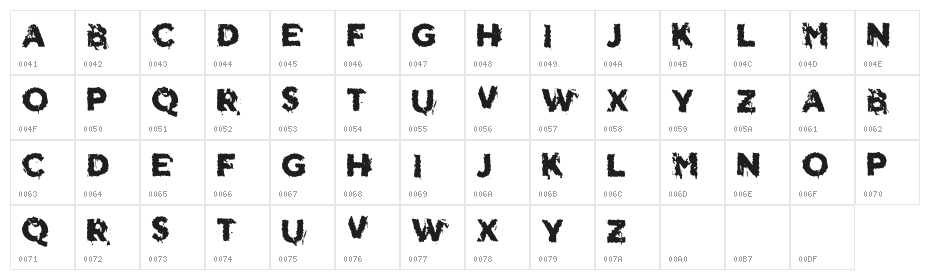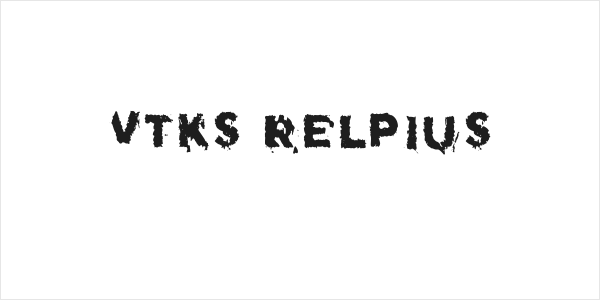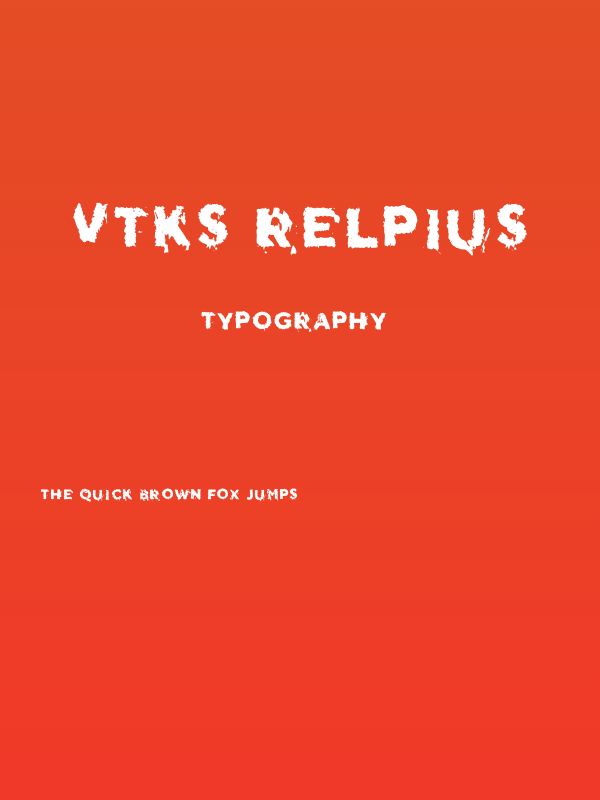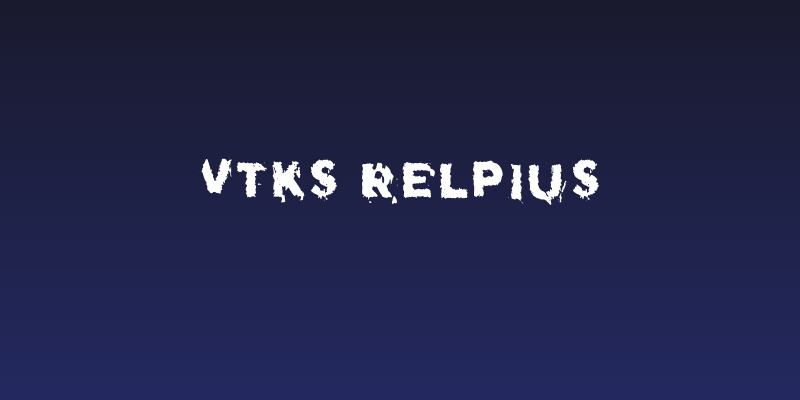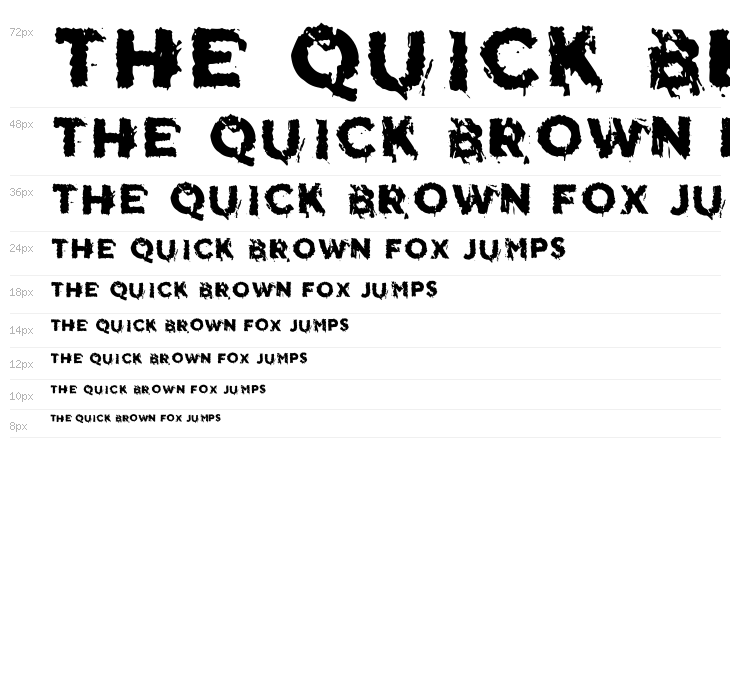
Vtks Relpius Font
Vtks Relpius Description
This font features a distressed and grungy aesthetic, with each character appearing as if it has been weathered or eroded over time. The edges are rough and irregular, giving it a raw and edgy feel. This style is reminiscent of urban street art or worn-out signage, making it ideal for projects that require a bold and rebellious look. The uppercase letters maintain a consistent height, while the overall appearance is bold and impactful. The texture adds a layer of depth and interest, making it stand out in any design.
| Overall Style | Grunge, Urban, Edgy |
| Proposed Projects | Ideal for album covers, posters, streetwear branding, or any project needing a bold, rebellious aesthetic. |